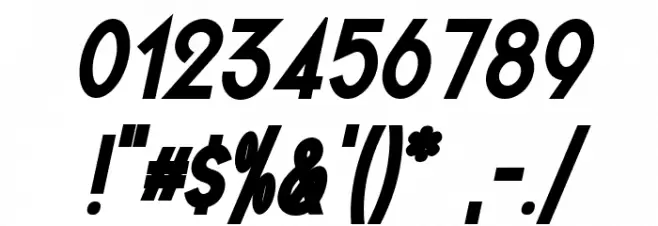
Quirkus Bold Italic Font
Quirkus Bold Italic Description
This font exhibits a bold and italicized style, characterized by its dynamic and forward-leaning posture. The uppercase letters are robust and assertive, while the lowercase letters maintain a consistent slant, enhancing the font's energetic appearance. The numerals are clear and bold, ensuring readability. Special characters are designed with the same boldness and slant, providing a cohesive look across all symbols. The overall design is modern and impactful, making it suitable for attention-grabbing applications.
A bold, italicized font with a dynamic and modern style from Uncategorized fonts.
- Proposed Projects: Ideal for headlines, advertising, branding, and any project requiring a bold and modern aesthetic.
- Use Case: Headlines, Logos, Advertising